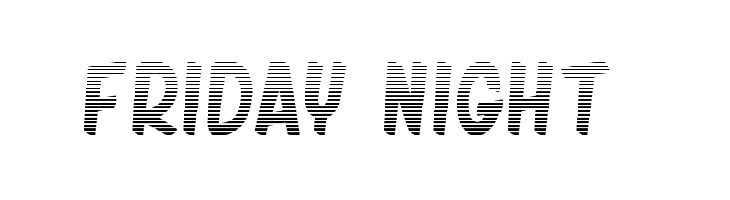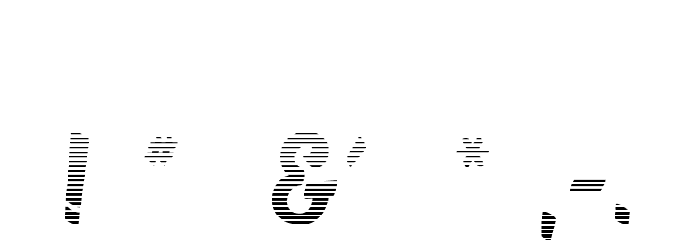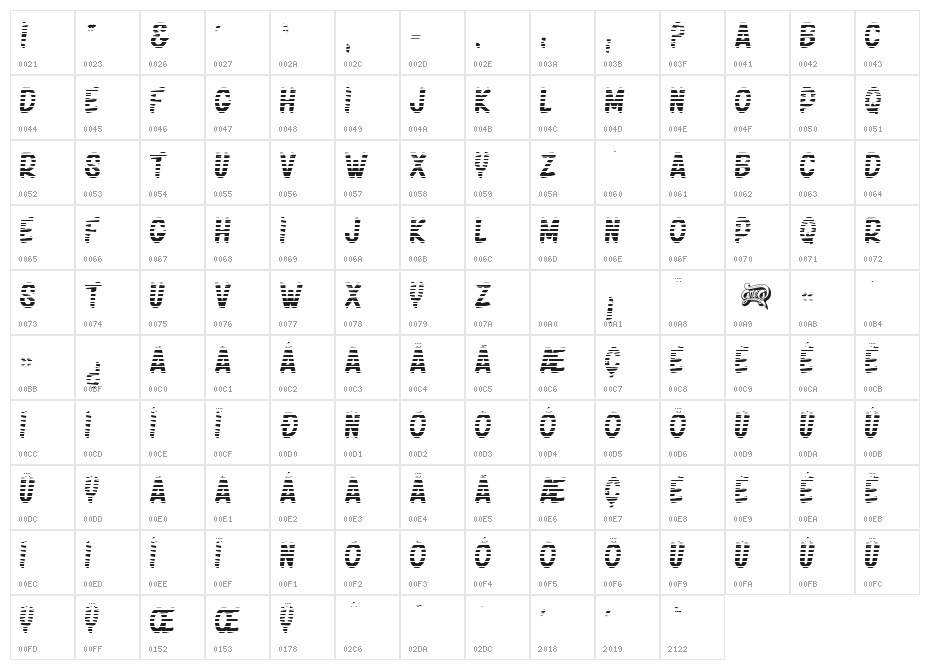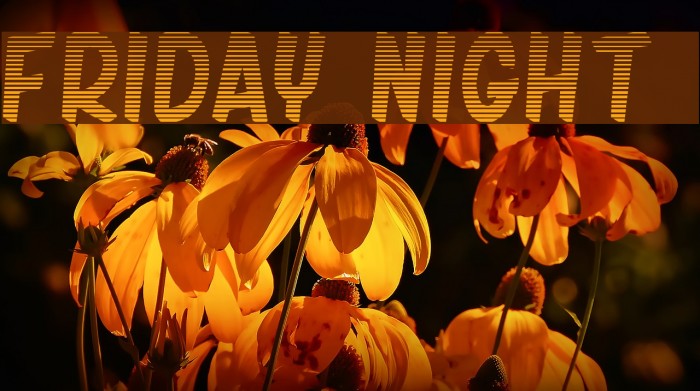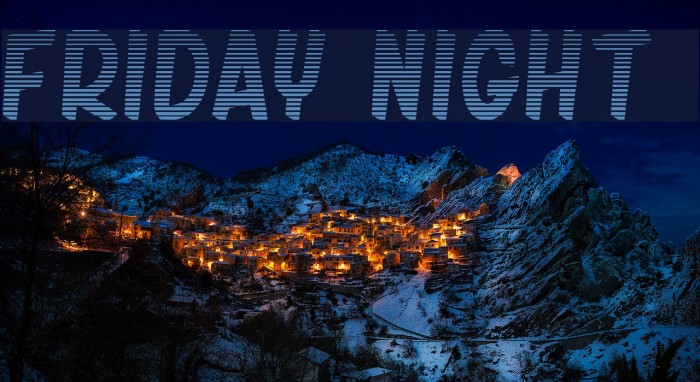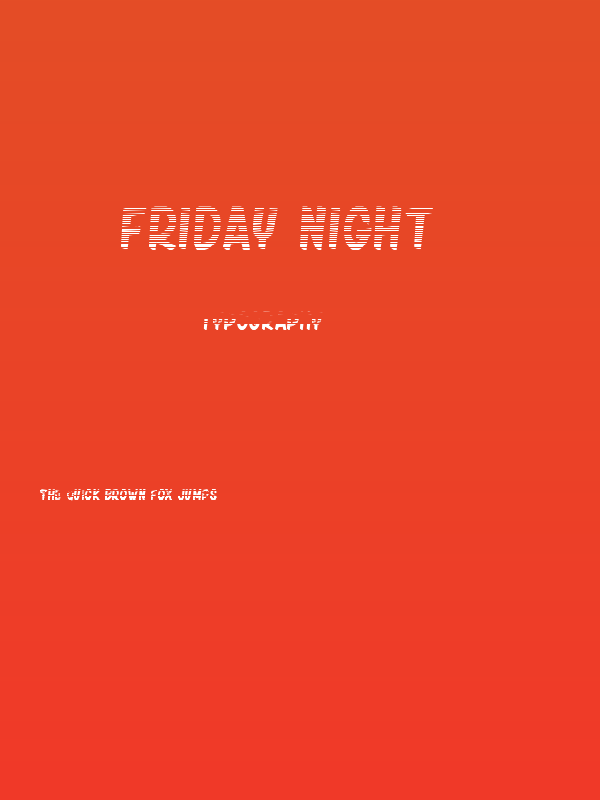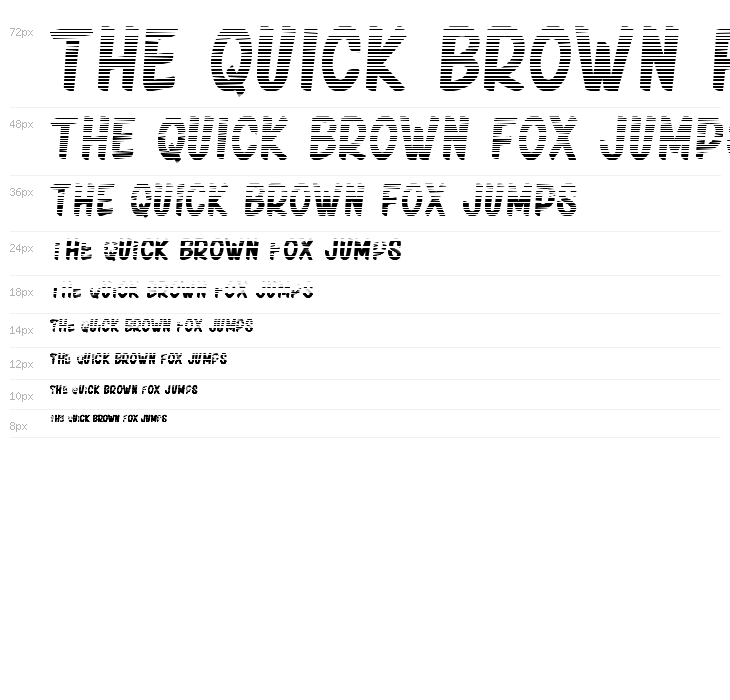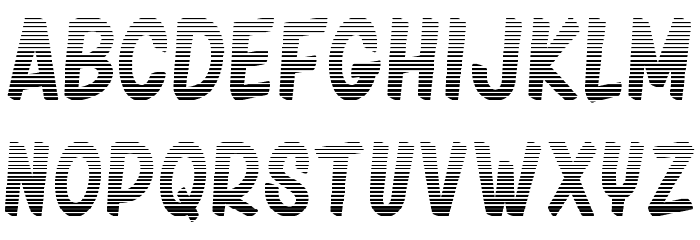
friday night 2 Font
friday night 2 Description
This font features a bold, decorative style with a unique striped pattern running horizontally across each character. The uppercase and lowercase letters maintain a consistent width, creating a cohesive look. The design is eye-catching and modern, with a playful twist that adds visual interest. The characters are well-defined, with clean edges and a slightly condensed form. The special characters, including punctuation and symbols, follow the same striped pattern, ensuring uniformity throughout the font. This font is ideal for projects that require a bold statement or a creative flair.
| Proposed Projects | Ideal for posters, headlines, branding, and creative design projects. |